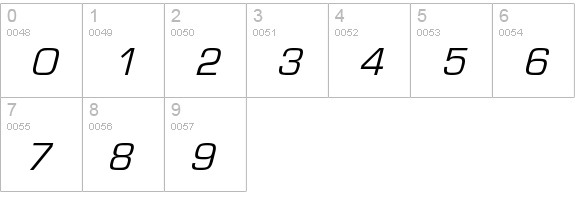
EurostileObl-No Font Details
EurostileObl-No is a modern and bold font that exudes a sense of strength and sophistication. Its geometric design and sleek lines make it perfect for conveying a sense of professionalism and innovation. The font's oblique style adds a dynamic flair to any design, making it stand out from the crowd. What makes EurostileObl-No even more appealing is that it is available for free download at FontsMarket.com. This means that you can easily access this versatile font for all your design needs without having to worry about any costs. Whether you're working on a logo, website, or print materials, EurostileObl-No is sure to make a strong visual impact and elevate your projects to the next level.